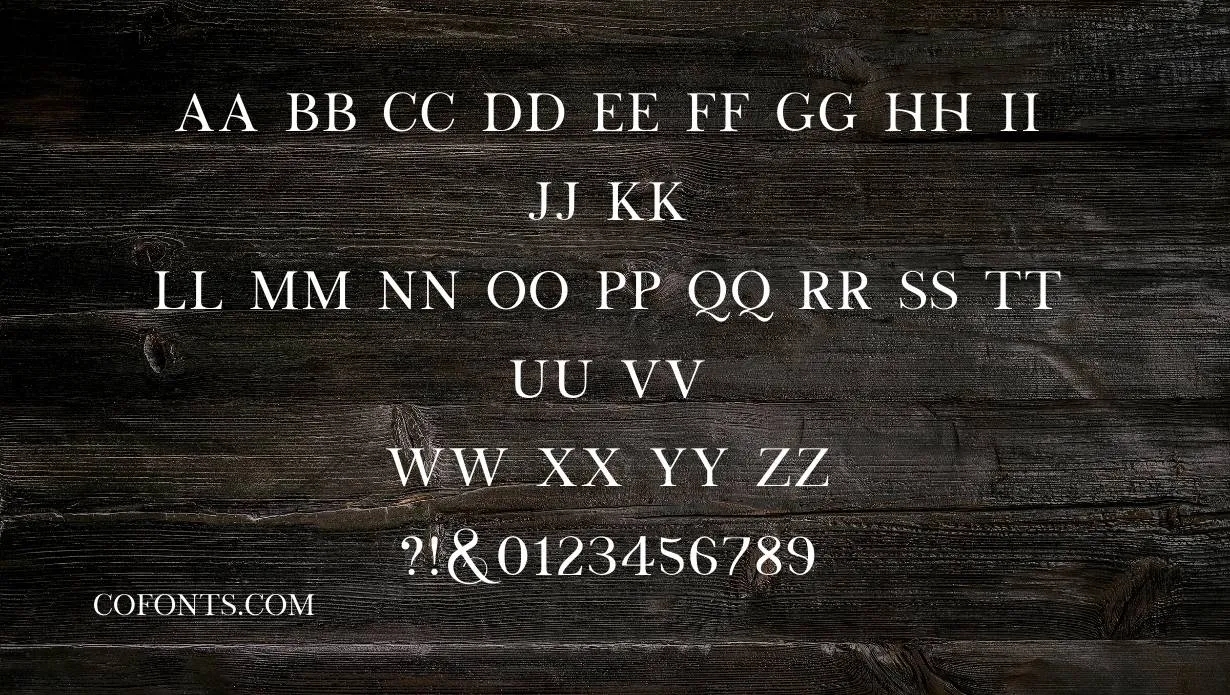
The Lucy Rose Font has a lot of character, and it is easy to use and customize. Display and serif are combined in this typeface. The design of Lucy Rose was created by Ellen Luff. A CSS family can also be specified for this font.
A sleek and strong typeface with all caps, it makes a solid foundation for blossomed alternatives. This font is very similar to the ampersand font
| Name | Lucy Rose Font |
| Style | Serif |
| Designer | Ellen Luff |